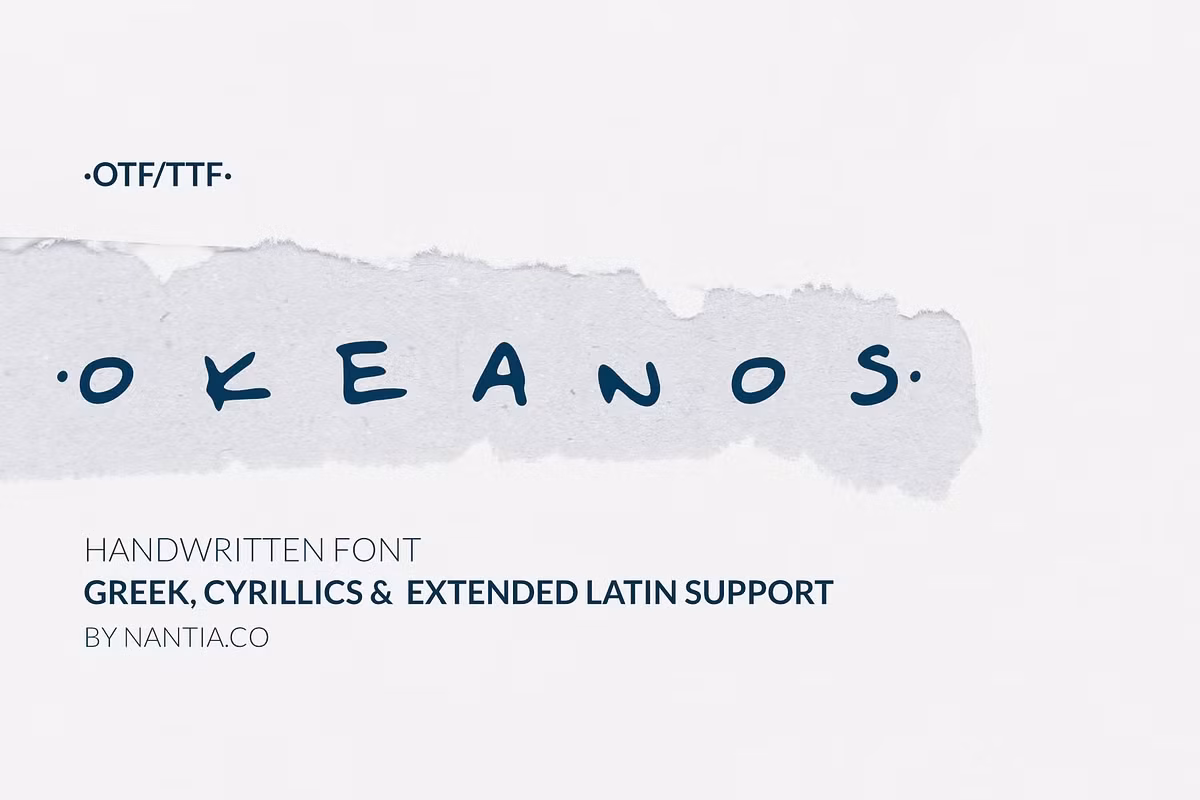
Greek Font Okeanos Handwritten Font Free Download is an elegant and artistic handwritten script typeface inspired by the fluidity and movement of water. With its smooth curves and organic style, this font is perfect for adding a unique, personal touch to your designs. Whether you're creating logos, invitations, branding materials, or social media graphics, Okeanos provides a sophisticated, yet casual feel.
The Greek Font Okeanos blends traditional handwritten charm with modern readability, making it versatile for a variety of projects that require a creative, artistic flair. Its flowing strokes are ideal for conveying elegance and creativity in both digital and print formats.
Add a touch of grace and creativity to your designs with the beautiful Okeanos!